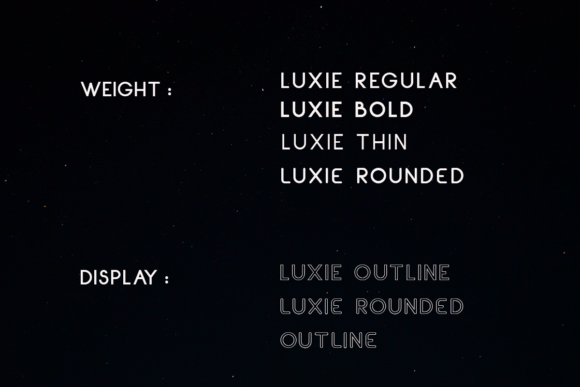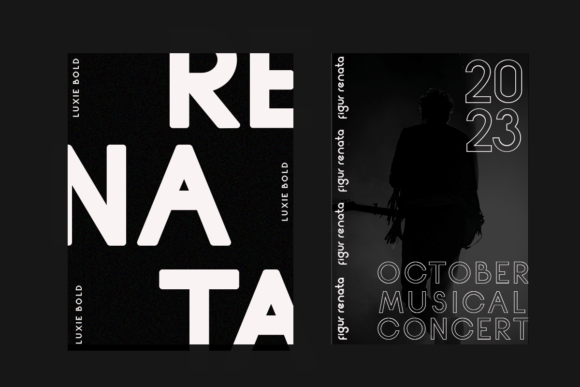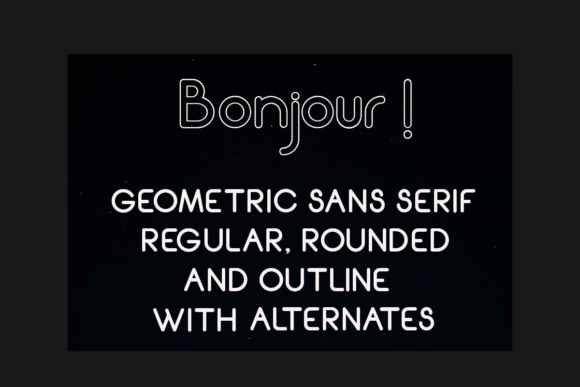
Introduction to Luxie Font
Luxie is a new Geometric font perfect for logos.
The font is suitable for creating wordmarks, titles, and taglines Use alternates to emphasize separate letters in your text.
Key Features of Luxie Font
Why Choose Luxie Font?